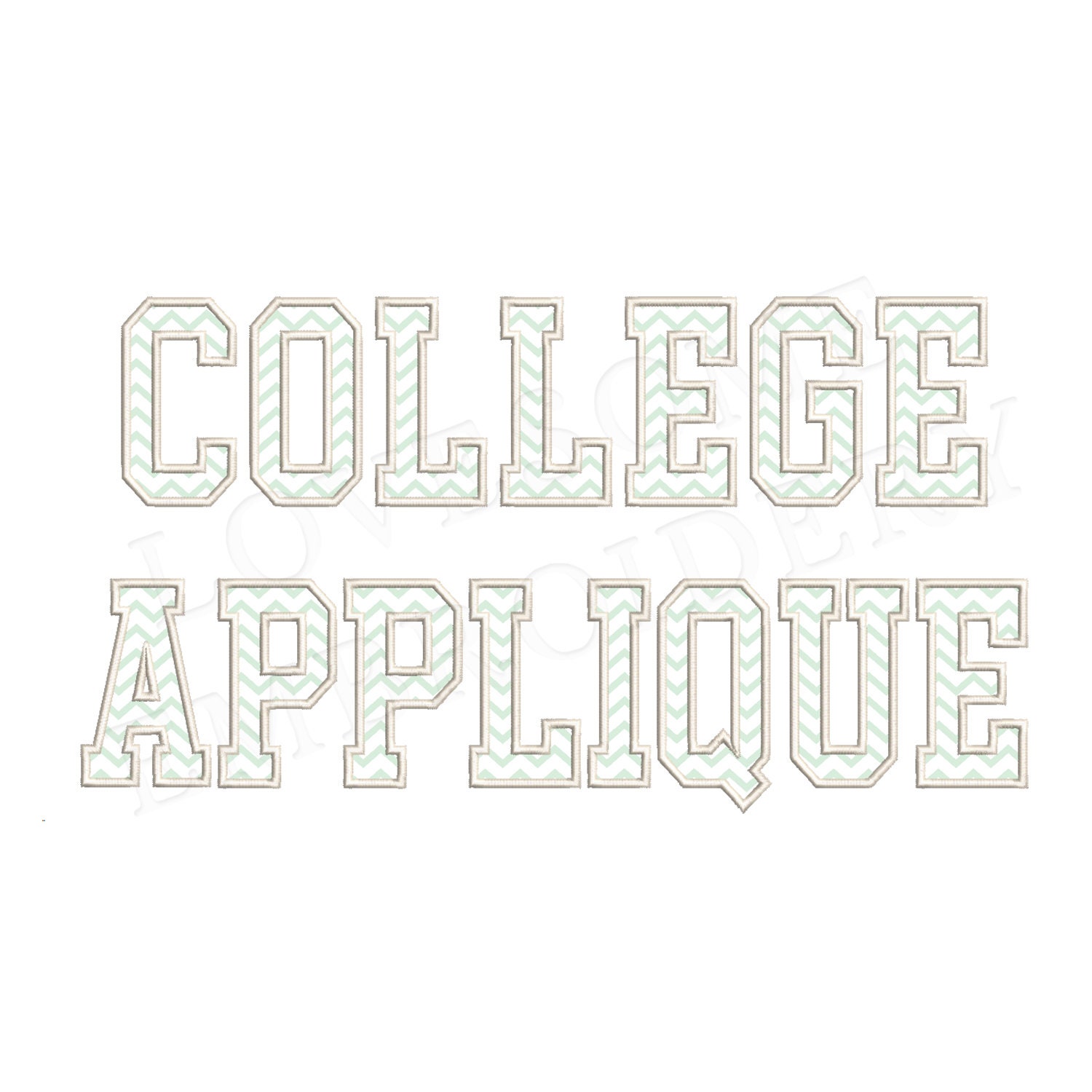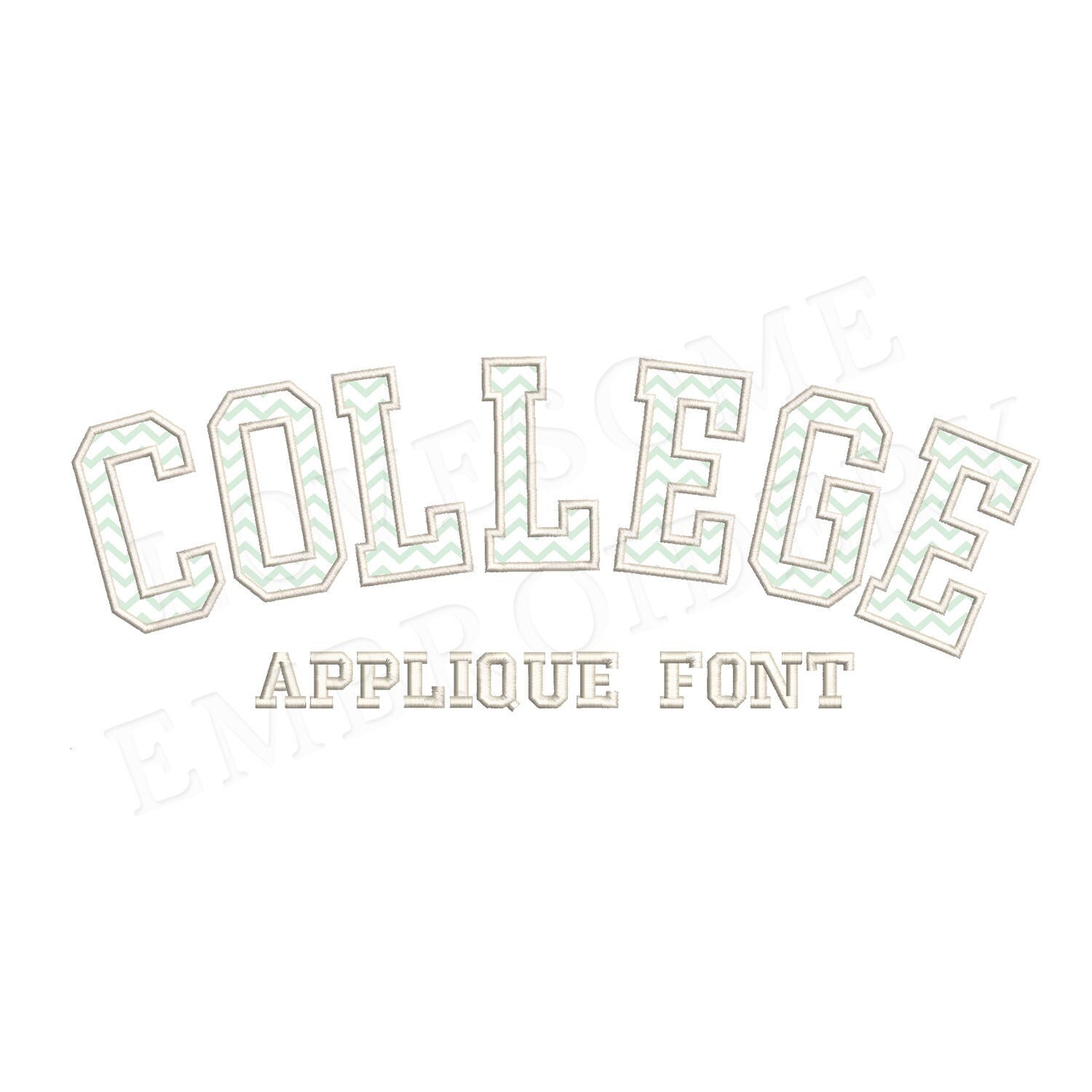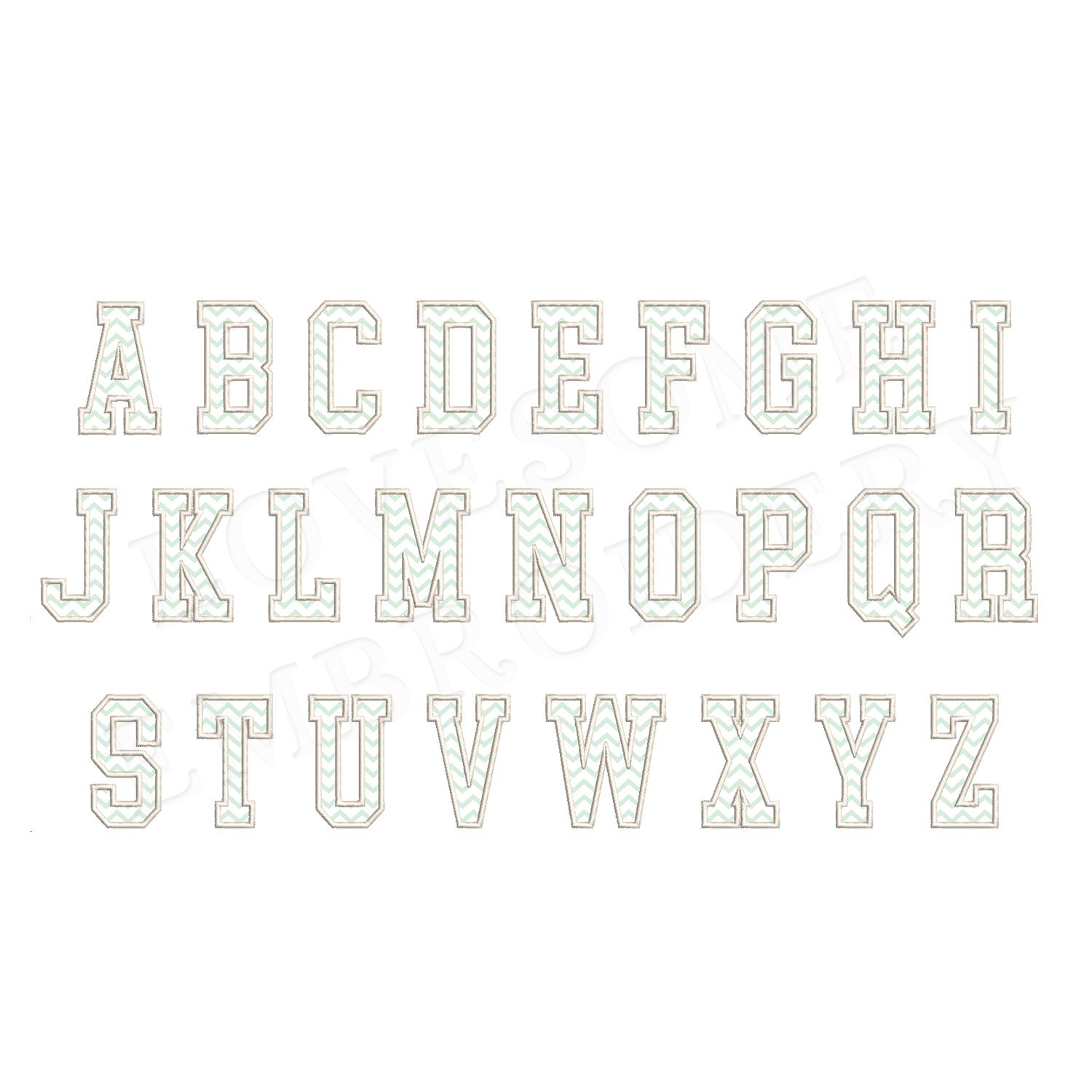
College Applique 5inch Font A-Z Machine Embroidery Sports Letters, Applique Embroidery Font Digital Download | Lovesome Design
This listing features a machine embroidery font set for applique embroidery which includes embroidery files of 26 applique uppercase letters in 5inch size. (For the whole set, pls see the listing images.)